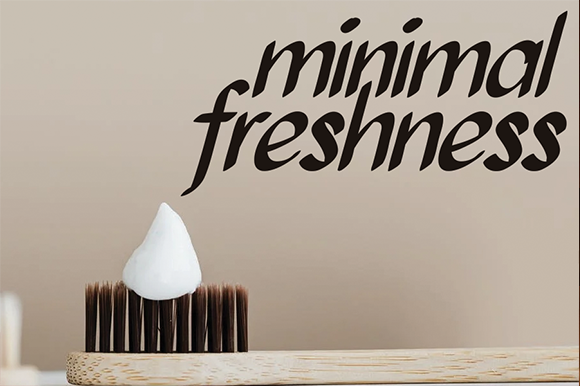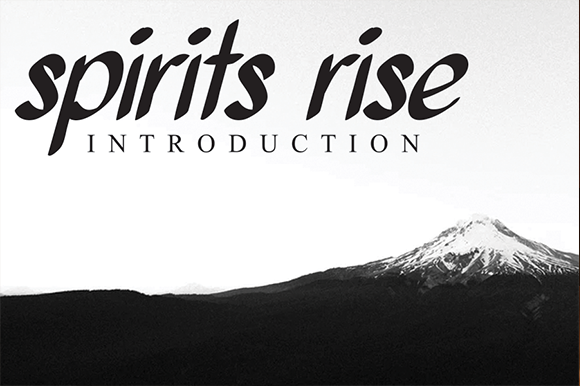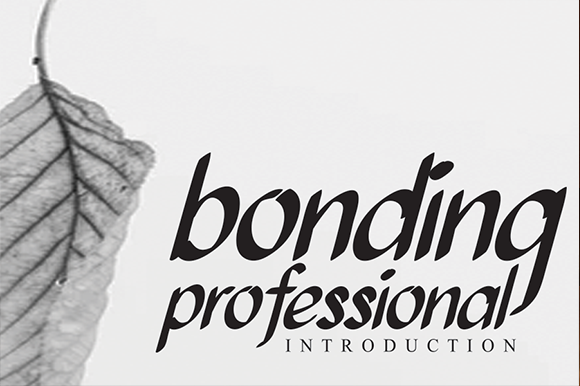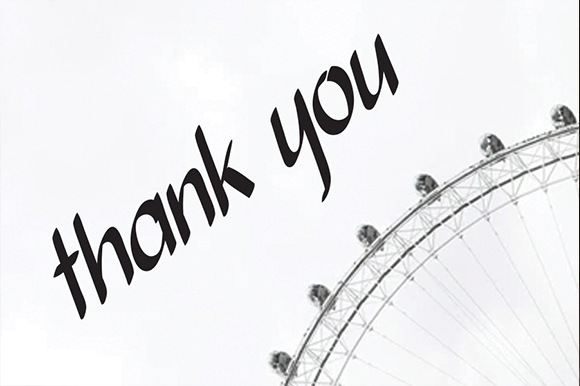
Introduction to Scratch Ribbon Font
Have you ever found yourself in the midst of a creative frenzy, surrounded by scraps of paper, colorful pens, and a vision that refuses to be contained? For many of us, this is the moment when inspiration strikes, and our imagination runs wild. As designers, we’re always on the lookout for that special something that can elevate our work and bring it to life. Enter the Scratch Ribbon Font – a delightful display font that exudes warmth and friendliness, making it the perfect addition to any high-quality design project.
Key Features of Scratch Ribbon Font
- High-quality, cursive font ideal for creative projects
- Transparent background, allowing for easy customization and layering
- Single-layer design, making it easy to work with in graphic design software
- Resolution-independent, ensuring crisp and clear text at any size
- Perfect for use in digital art, scrapbooking, and other creative endeavors
Honest Review: Scratch Ribbon Font
As a designer, I’m always on the lookout for high-quality design resources to elevate my creative projects. Recently, I had the chance to work with the Scratch Ribbon Font, and I must say, it’s been a game-changer.
- ✨ Unique and creative design that adds a touch of elegance to any project
- ✨ Transparent background makes it easy to customize and pair with other design elements
- ⚠️ Limited font sizes and styles may not be suitable for complex or large-scale designs
- ⚠️ Not ideal for projects that require a lot of text manipulation or formatting
Overall, I’m thoroughly impressed with the Scratch Ribbon Font. Its unique design and high-quality aesthetic make it an excellent addition to any design project. While it may have some limitations, it’s still a valuable resource that can help designers take their creative projects to the next level. I’d definitely recommend it as a design resource for anyone looking to add a touch of sophistication to their work.
The Scratch Ribbon Font is perfect for use in various creative projects, including wedding invitations, birthday cards, and social media graphics. With a transparent background, this font is ideal for layering over images or other design elements.